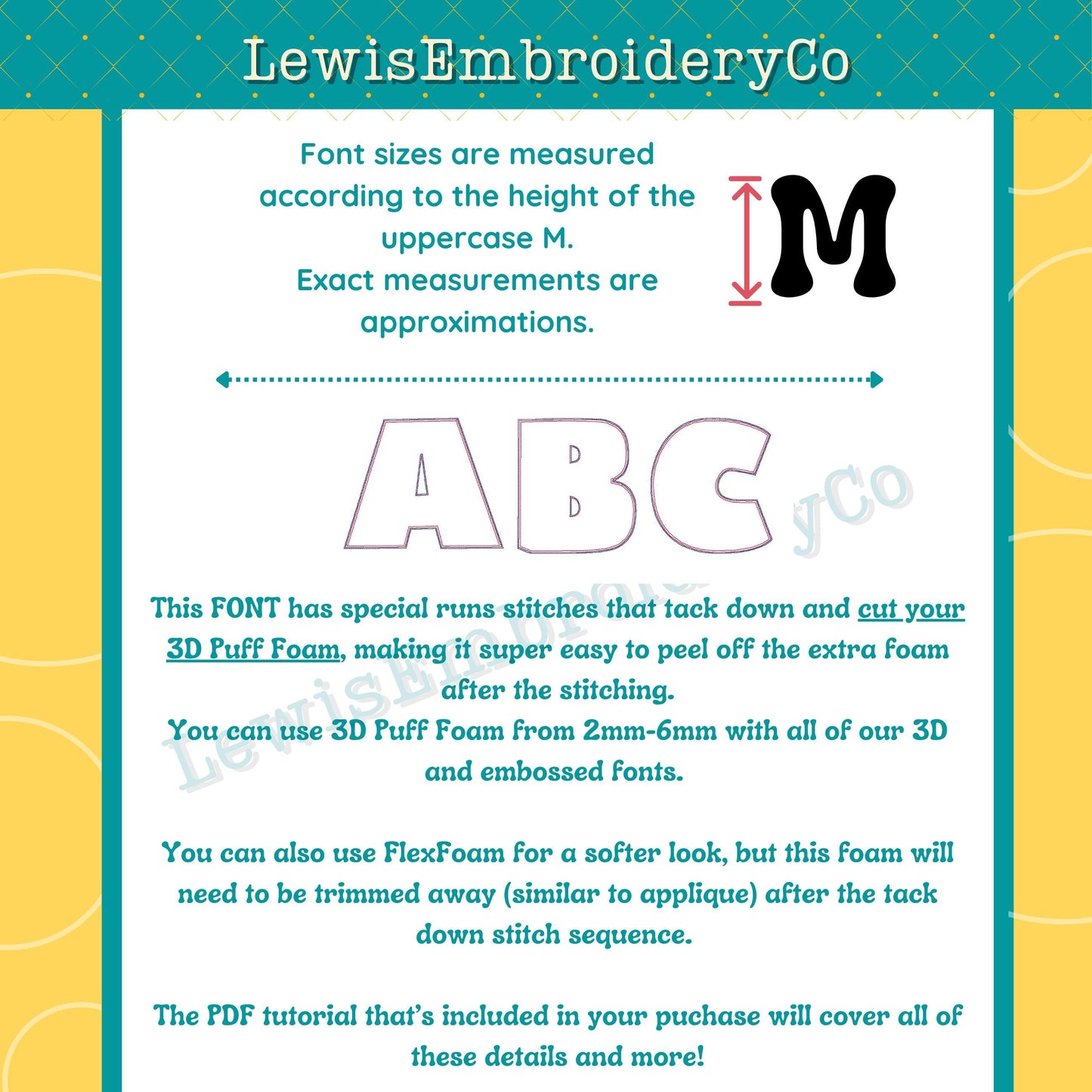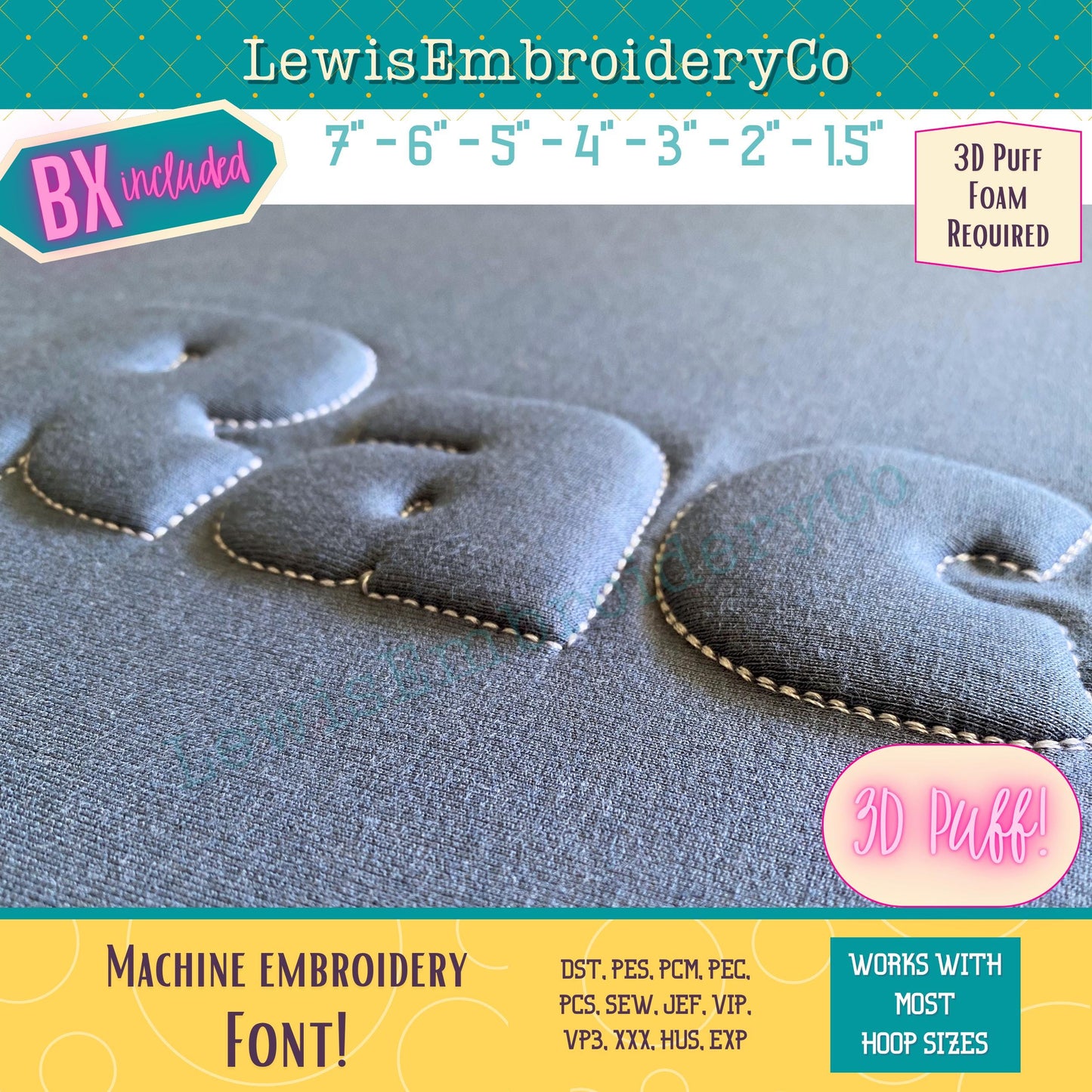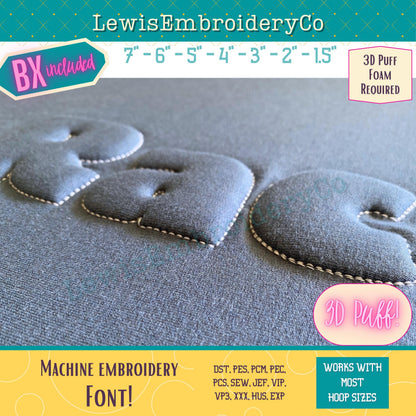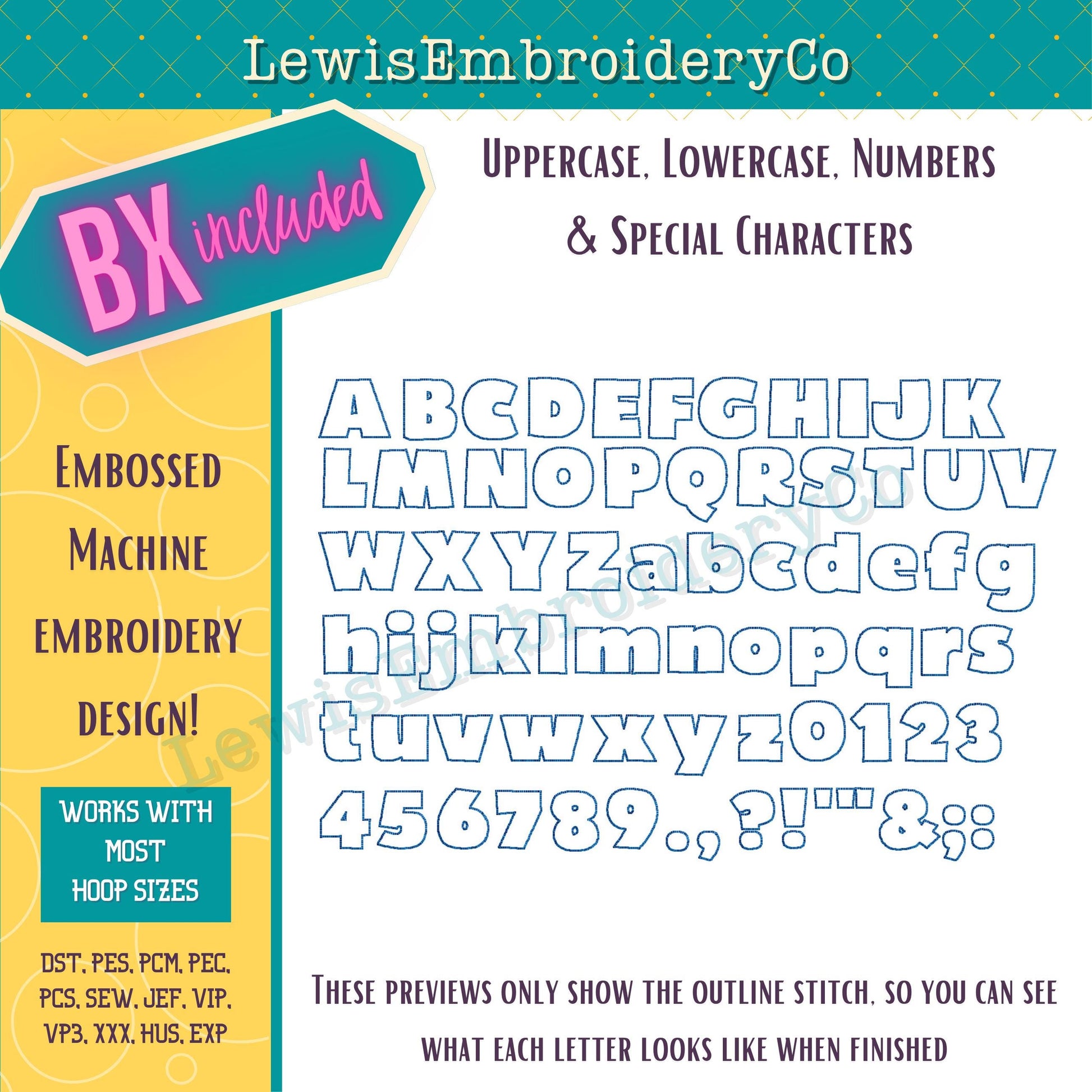
Embossed 3D Puff, Block, Machine Embroidery Font - With BX - (PDF Tutorial Included)
This font was designed to be used with a weighted stretchy fabric, such as sweatshirt material. The quality of the outcome cannot be guaranteed if you use very lightweight fabric, or fabric with no stretch.